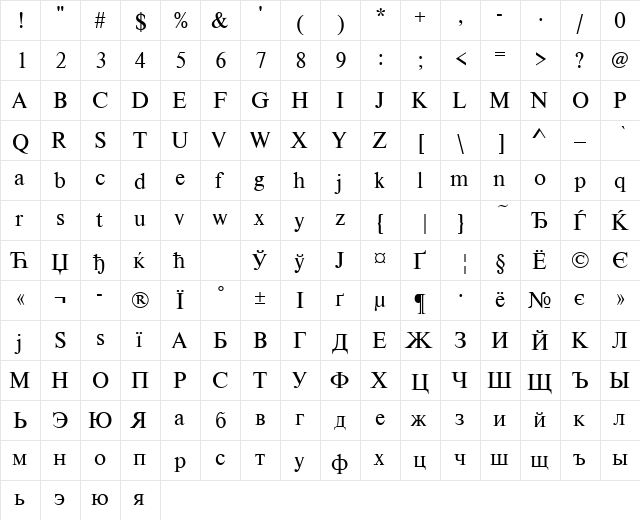
NimbusRomDCY Regular
Design Context for NimbusRomDCY Typeface
NimbusRomDCY offers clean, dependable letterforms without strong stylistic allegiance, making it a practical choice for designers who need flexibility.